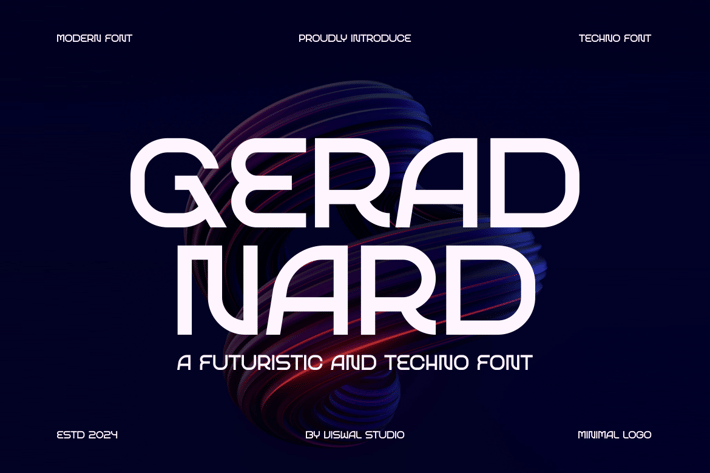
Gerad Nard - Futuristic & Tech Font
Presenting Gerad Nard - Font is suitable for badge, labels, logo, branding, magazine, poster and etc. Our fonts have Uppercase & Lowercase, Numeral & Punctuation, Multilingual support and Opentype Features. For Amazing designs you can mix with other fonts as a complement.